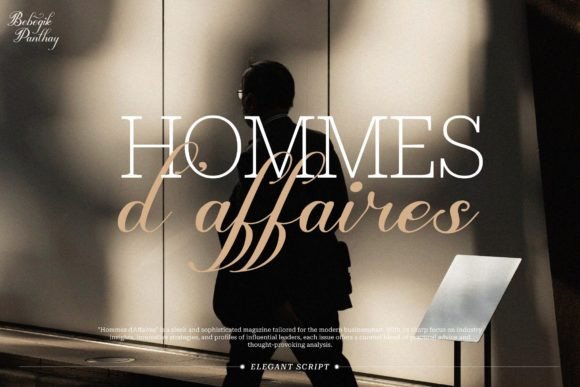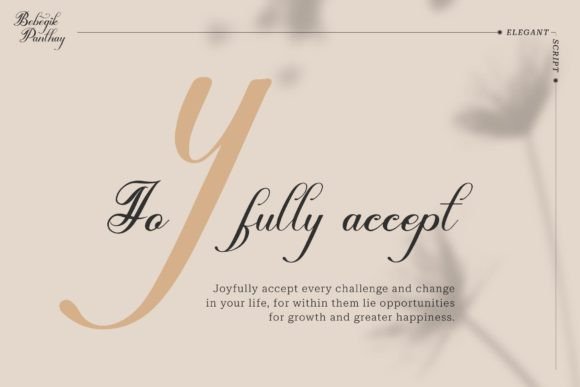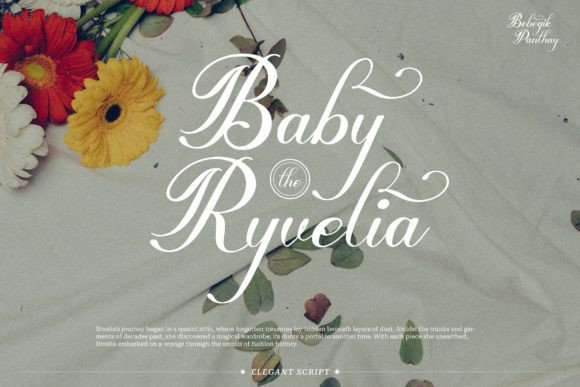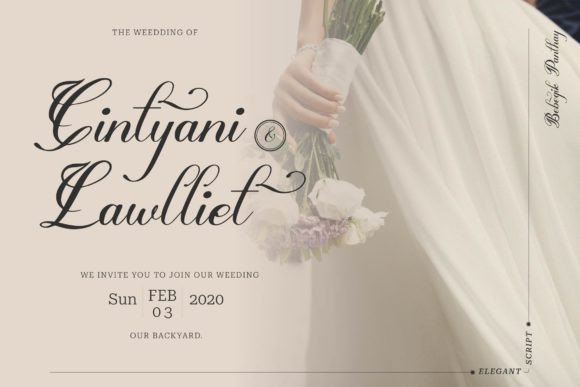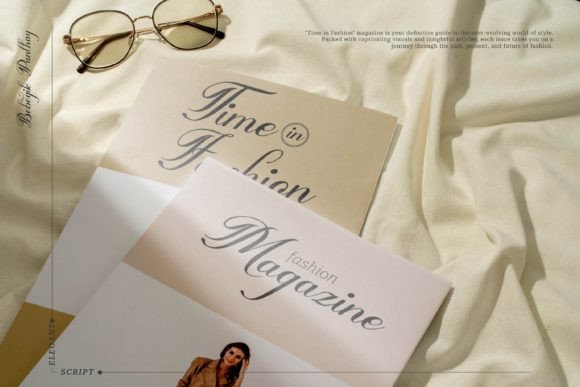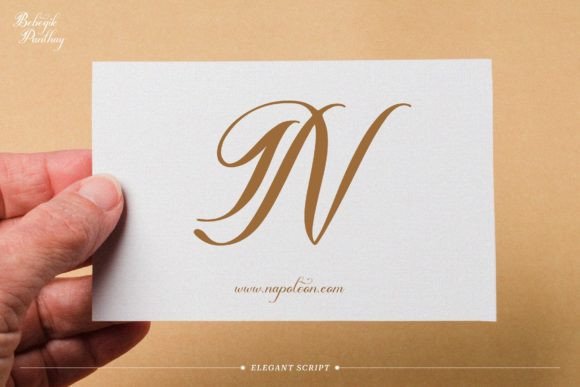
| 📌 Product Name | Bebegik Panthay Font |
| 👤 Author | Denustudios |
Enter Bebegik Panthay Font, a beautiful calligraphy script that’s sure to capture the essence of your creative vision. This stunning font is perfect for a wide range of projects, from logos and branding to homeware designs and product packaging. Its elegant and refined style will elevate any design, making it a valuable addition to any designer’s toolkit.
Whether you’re a seasoned pro or a budding designer, Bebegik Panthay Font is a game-changer. Its versatility and timeless appeal make it an essential resource for anyone looking to add a touch of sophistication to their designs.
Bebegik Panthay Font Key Features
- Font Style: A unique, handwritten script font with a mix of traditional and modern elements.
- Size: The font family consists of 6 weights (Thin, Light, Regular, Medium, Bold, and Black) and 3 styles (Regular, Italic, and Oblique).
- Resolution: Designed to be scalable and legible at various resolutions, including print and digital formats.
- Language Support: Supports a wide range of languages, including Latin, Greek, and Cyrillic alphabets.
- Unique Characteristics: Features a distinctive, flowing script with a mix of cursive and printed letterforms, making it suitable for creative and artistic applications.
Bebegik Panthay Font Review
Overall, I think Bebegik Panthay is a great font choice for designers looking for a unique, hand-drawn feel. ✨ The font’s organic, cursive style makes it perfect for creative projects like wedding invitations, children’s books, or any design that needs a touch of whimsy.
- ✨ Unique, hand-drawn style that adds a touch of personality to designs
- ✨ Wide range of weights and styles to choose from, making it versatile for different design applications
- ✨ Supports multiple languages, making it a great choice for international design projects
- ⚠️ May not be the best choice for designs that require a more formal or professional tone
- ⚠️ Can be difficult to read at small font sizes, especially in body text
- ⚠️ May not be compatible with all operating systems or devices
Overall, I would recommend Bebegik Panthay to designers who want to add a touch of creativity and personality to their designs. With its unique style and wide range of weights and styles, it’s a great choice for creative projects. However, it may not be the best choice for more formal or professional designs.
Some common use cases for Bebegik Panthay Font include:
– Creating unique and eye-catching headings for marketing materials or websites.
– Adding a touch of elegance to formal documents or presentations.
– Experimenting with different font sizes and styles to create visual interest.
Great Vibes is a script font designed by Pablo Impallari and Rodrigo Fuenzalida. It has a similar handwritten feel to Bebegik Panthay Font, but with a more elegant and refined touch. Great Vibes is ideal for designers who want to add a touch of sophistication and luxury to their designs.